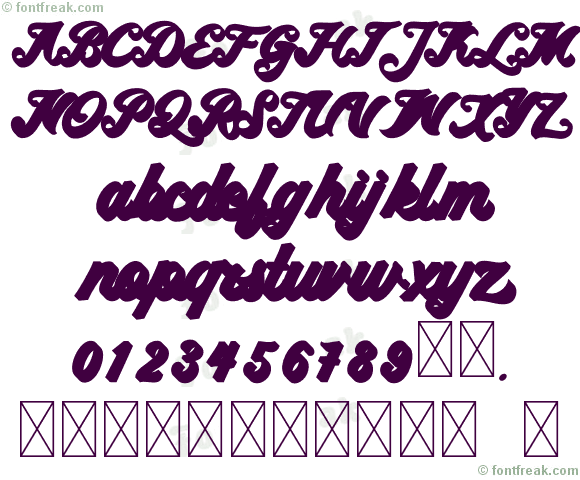
Ricota Shadow
About Ricota Shadow
Ricota Shadow by Burhan Afif is a distinctive display font that combines elegance with a playful twist. This font features a unique shadow effect that adds depth and dimension, making it a standout choice for various design applications. The strokes are thick yet fluid, giving the typeface a bold presence while maintaining readability. The contrast between the solid fills and the shadowed elements creates an eye-catching visual appeal, perfect for capturing attention.
The spacing is thoughtfully designed to ensure that each letter flows seamlessly into the next, making it ideal for larger text settings. Ricota Shadow is particularly well-suited for creative projects such as wedding invitations, where its whimsical nature can evoke a sense of joy and celebration. Additionally, it works wonderfully for movie posters, where the boldness can convey excitement and drama. Restaurant menus can also benefit from this font, as it adds a touch of sophistication that enhances the dining experience. Content creators looking to add flair to their social media graphics will find Ricota Shadow to be an excellent choice, as it stands out in a crowded digital landscape.
Overall, Ricota Shadow distinguishes itself through its playful yet elegant design, making it a must-have for anyone seeking to infuse their work with character and creativity. This font not only enhances visual communication but also brings a sense of joy to any project.